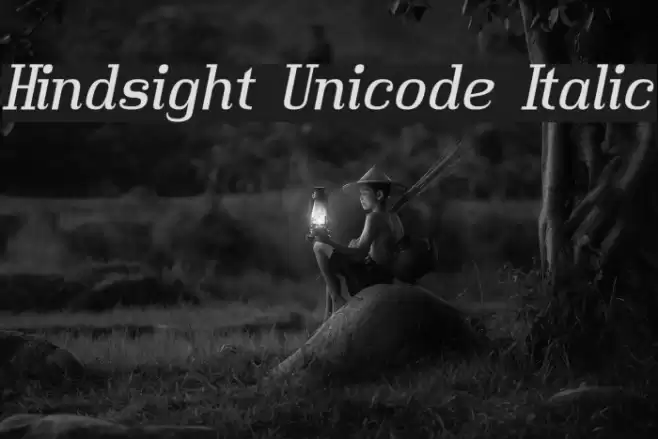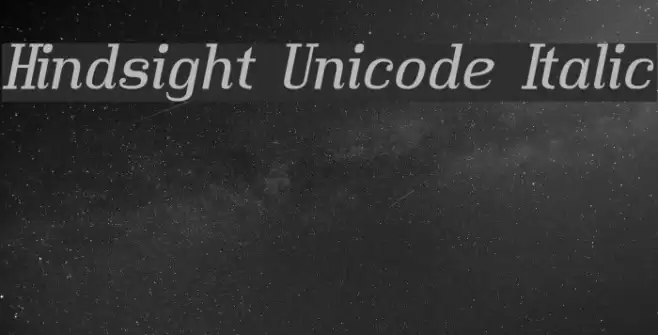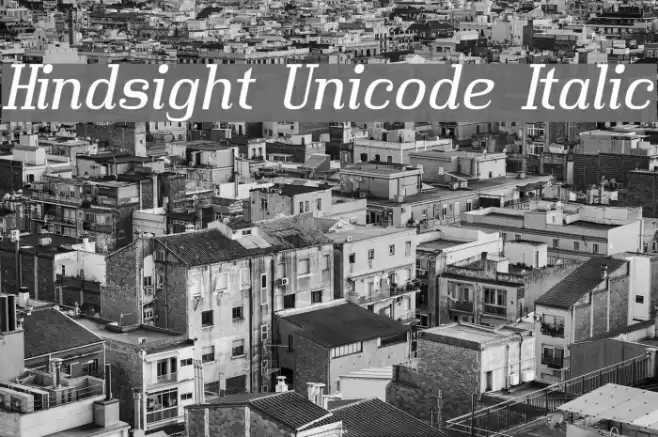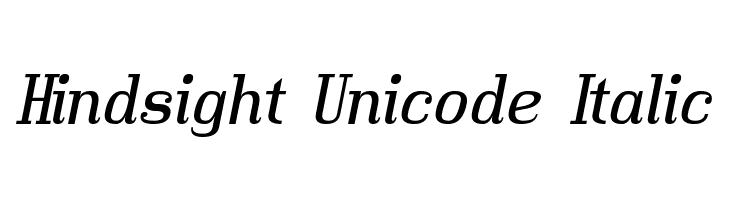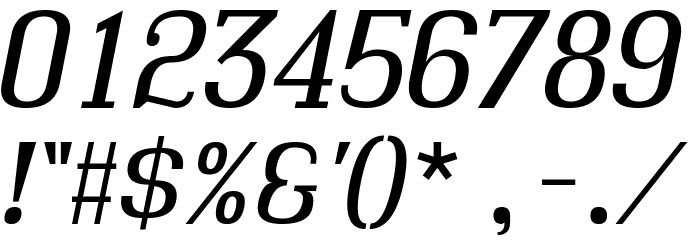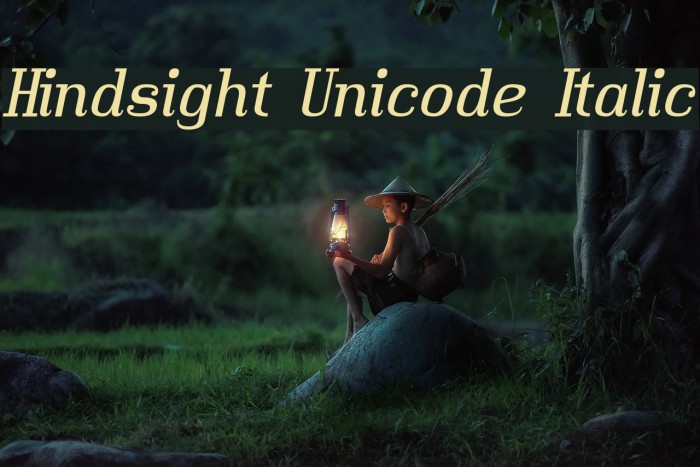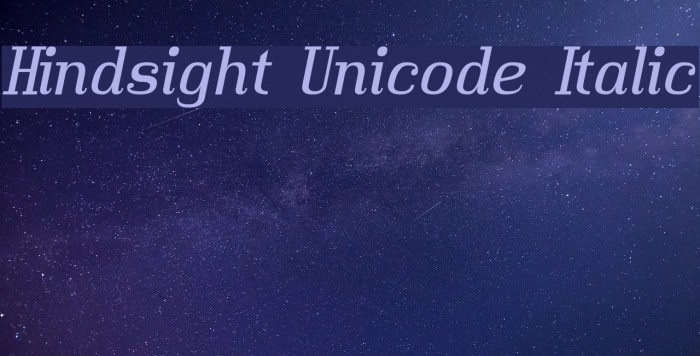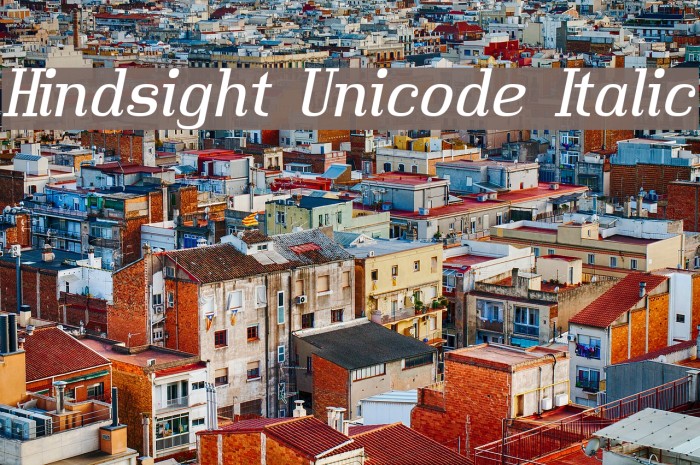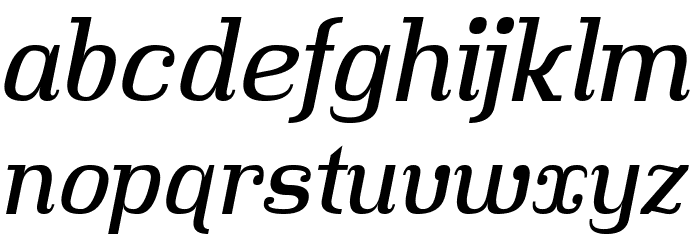
Hindsight Unicode Italic Font
Hindsight Unicode Italic Description
This font exhibits a classic italic style with a distinct slant, giving it a dynamic and elegant appearance. The characters are well-defined with moderate contrast between thick and thin strokes, enhancing readability while maintaining a sophisticated look. The uppercase letters are tall and slightly narrow, while the lowercase letters have a smooth, flowing quality. The numerals are consistent with the overall style, providing a cohesive look across all characters. Special characters are included, maintaining the font's elegant and refined aesthetic.
A classic italic font with moderate contrast and elegant, flowing characters from Uncategorized fonts.
- Proposed Projects: Ideal for projects requiring a touch of elegance, such as wedding invitations, formal event programs, or luxury brand logos.
- Overall Style: Classic
- Use Case: Headlines, Logos, Invitations